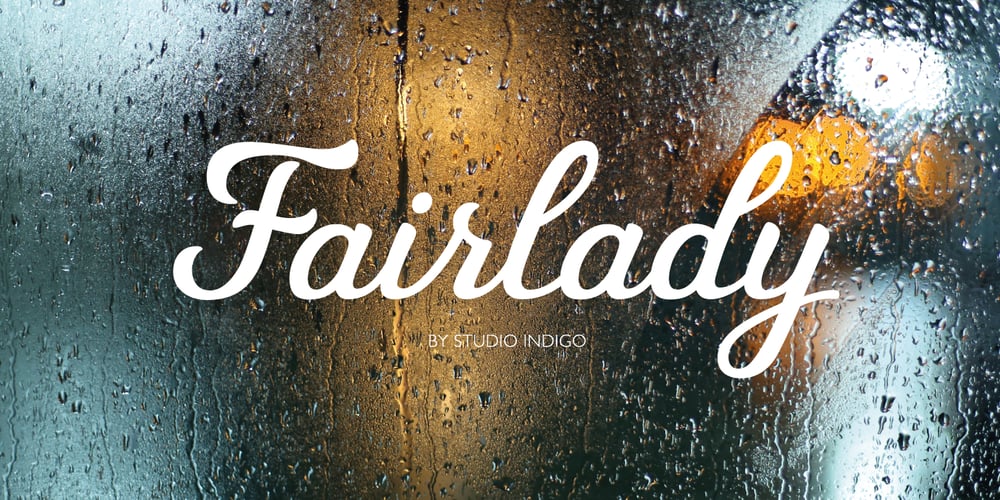
Fairlady
Fairlady font
Fairlady Font Family was designed by Helena Öhman and published by Studio Indigo. Fairlady contains 1 styles and family package options. Fairlady is a somewhat chunky script font that is developed from my own handlettered brush letters. My idea was to design a bold cursive script font with a strong 1950’s vintage feeling to it. Fairlady is a decorative and quite tightly spaced font with preserved legibility which makes it perfect for vintage cards, labels, posters, logos, packaging and more. It has multilingual support for most European countries.